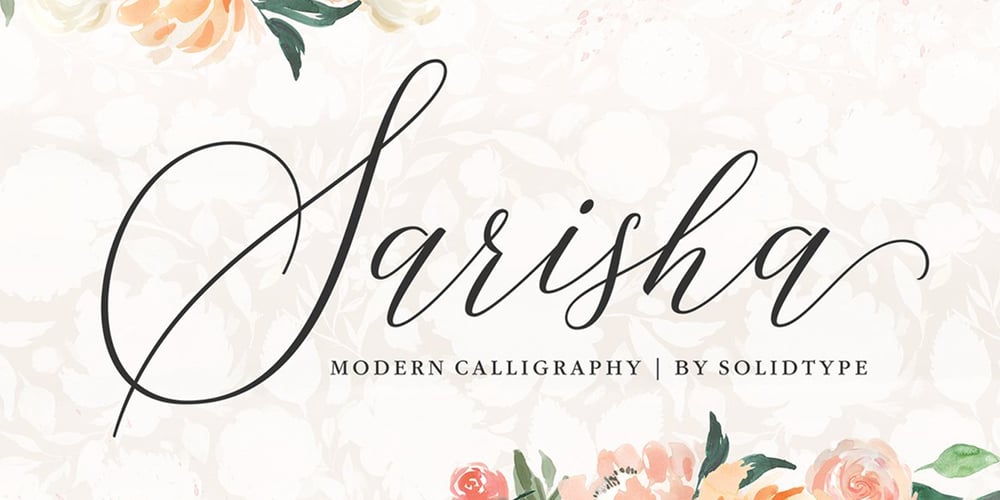
Sarisha Script Font Family was designed by Riski Firmana and published by Solidtype. Sarisha Script contains 1 styles and family package options. A new modern calligraphy font that features a varying baseline, smooth line, classic and elegant touch.Sarisha Script features 420+ glyphs and 256 alternate characters. It comes with a handy set of opentype stylistic, use the beautiful ligatures, alternates and swashes. You need a program that supports OpenType features such as Adobe Illustrator CS, Adobe Photoshop CC, Adobe Indesign, Microsoft Word 2010.It is perfect for logo, greetings, branding, quotes, prints, invitations and crafting. All lowercase letters include alternates, beginning & end swashes, that makes the font look fabulous!These are all coded with PUA Unicode. Mac users can use Font Book and Windows users can use Character Map to view and copy any of the extra characters to paste into your favourite text editor/app.Thanks and have a wonderful day ๐